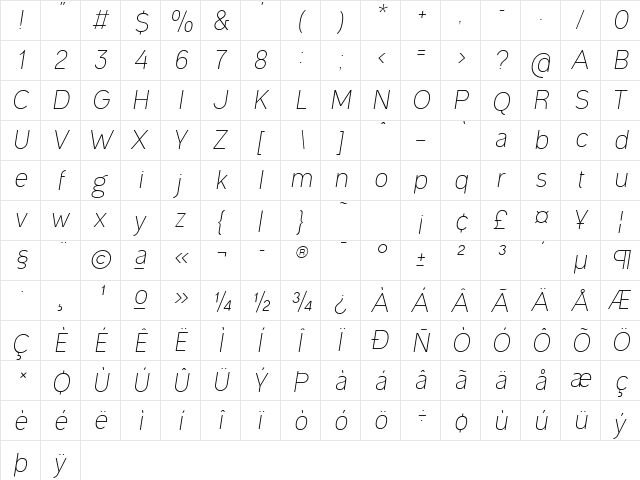
Ogonek Light Italic
Design Context for Ogonek Light Typeface
Ogonek Light takes a measured approach to typography — its balanced proportions and neutral character make it a reliable workhorse for both digital and print work. The dynamic lean of this cut emphasises speed and emphasis in any layout. Its slender proportions lend an understated elegance to any composition.
Pro Tip: Use Ogonek Light for emphasis, pull quotes, and subheadings where its slanted energy can add rhythm to the layout.